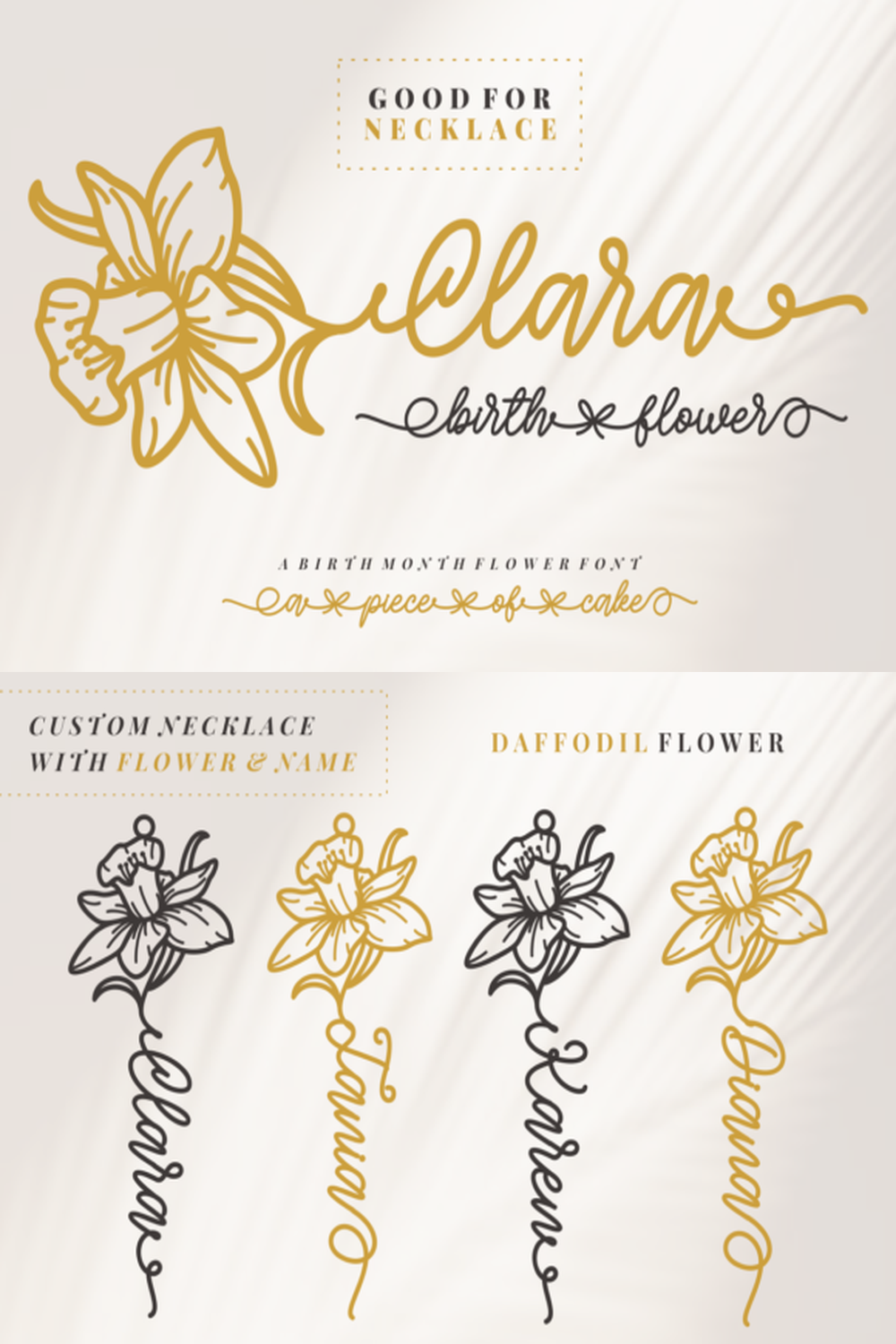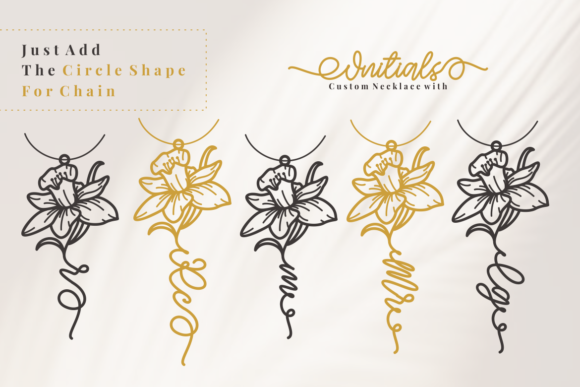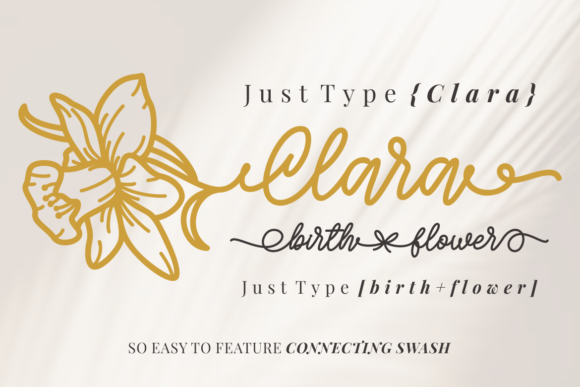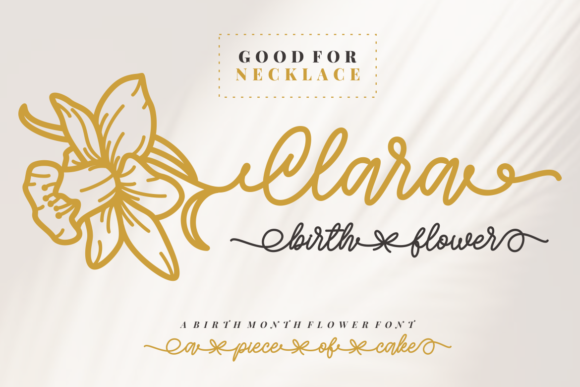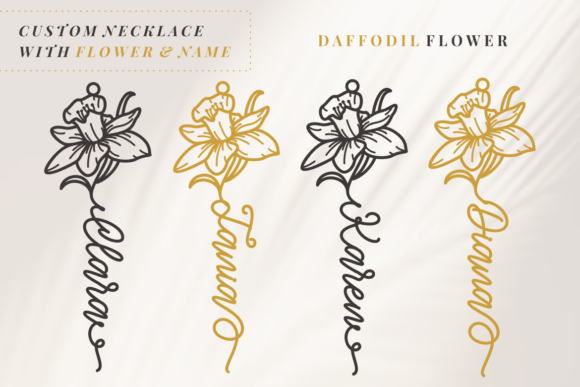
Clara Birth Flower Font
About the Clara Birth Flower Font
The Clara Birth Flower Font is here to transform your projects with its distinctive character and style. Clara Birth Flower is a vintage styled script font carefully created with a touch of elegance. Whether you’re looking for fonts for Instagram or calligraphy scripts for DIY projects, this font will turn any creative idea into a true piece of art!
Clara Birth Flower Font Usage Examples